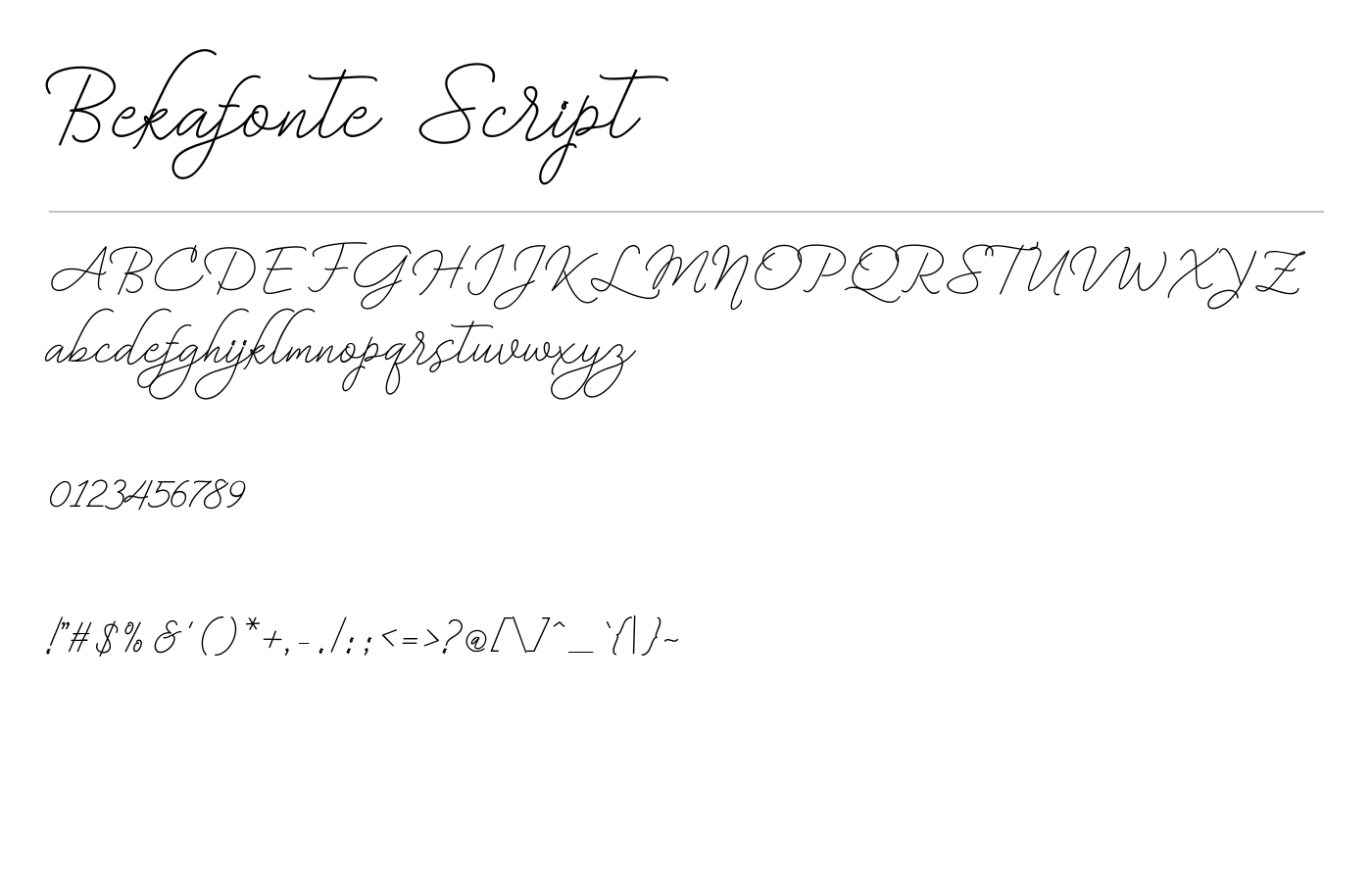
Bekafonte Script is an elegant and delicate script font characterized by its thin, flowing strokes and graceful letterforms that mimic natural handwriting. With its refined, airy style, it works beautifully for invitations, branding, and editorial design where a touch of sophistication and personal charm is desired. This font is perfect for creating a stylish, intimate atmosphere in projects that need a gentle yet polished handwritten feel.
Bekafonte Script Font
About Bekafonte Script Font
| Font family | Bekafonte Script Font |
| Designer | Barland |